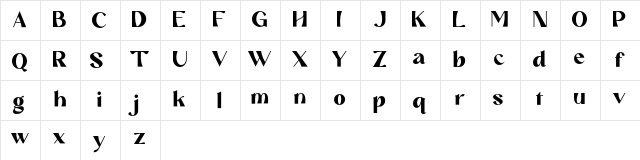
Mattire DEMO Regular
| Foundry | Jamaludin Ahamd Sahestya Dharma |
| Designer | Dharmas Studio |
Design Context for Mattire DEMO Typeface
Mattire DEMO takes a measured approach to typography — its balanced proportions and neutral character make it a reliable workhorse for both digital and print work.